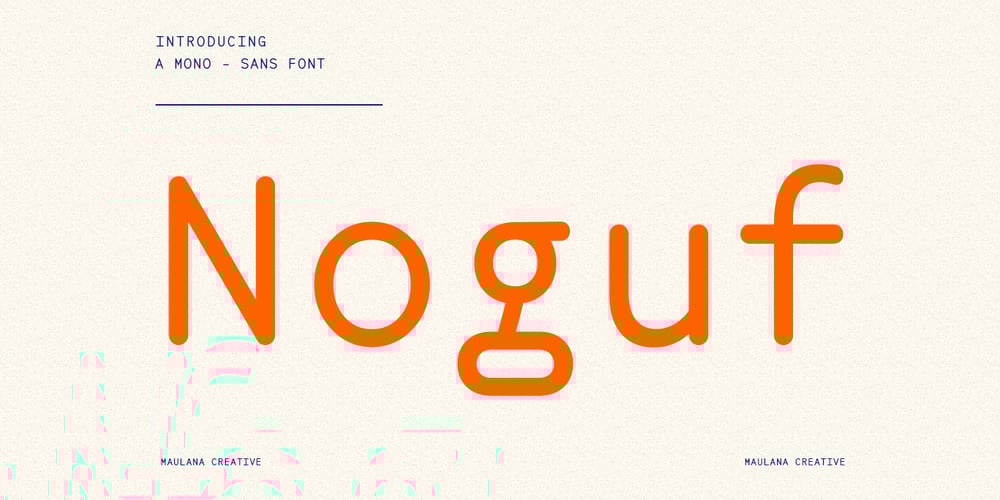
MC Noguf Font Family was designed by Gilang Maulana and published by Maulana Creative. MC Noguf contains 1 styles and family package options. Noguf is a modern monospace display font. With regular consist stroke, fun character with a bit of ligatures and alternates. To give you an extra creative work. Noguf font support multilingual more than 100+ language. This font is good for logo design, Social media, Movie Titles, Books Titles, a short text even a long text letter and good for your secondary text font with script or serif. Make a stunning work with Noguf font. Cheers, Maulana Creative